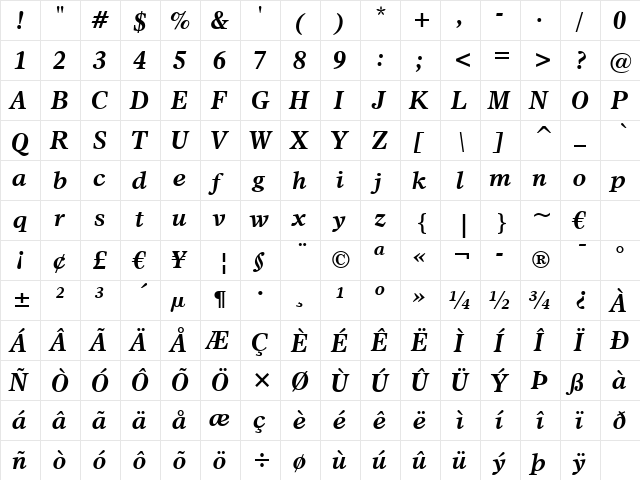
Dutch811 BT Bold Italic
Design Context for Dutch811 BT Typeface
Dutch811 BT offers clean, dependable letterforms without strong stylistic allegiance, making it a practical choice for designers who need flexibility. The slanted form adds forward momentum and visual energy. The heavy weight commands attention and anchors typographic hierarchies.
Pro Tip: Use Dutch811 BT for emphasis, pull quotes, and subheadings where its slanted energy can add rhythm to the layout.